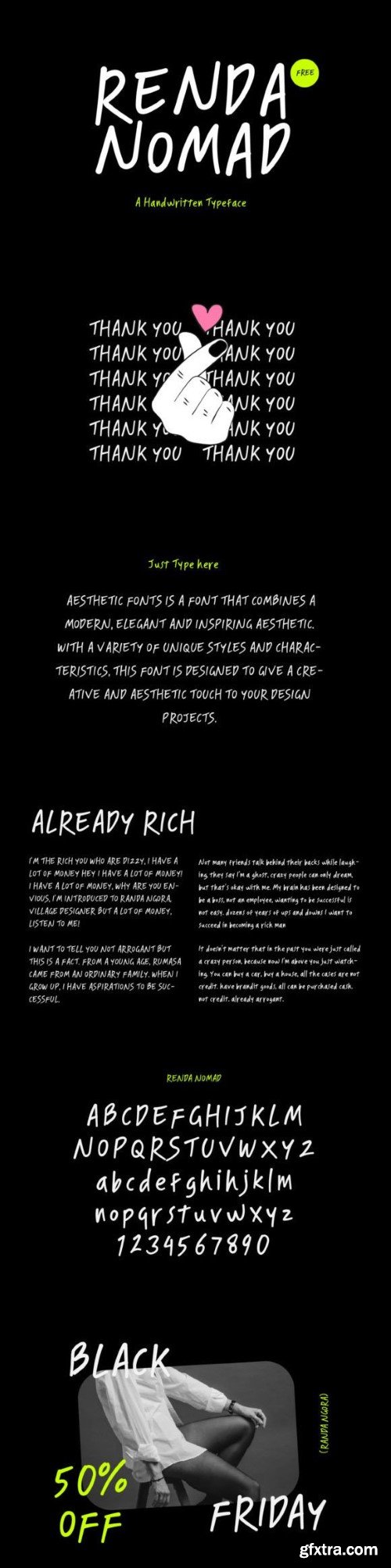
拉纳·诺马字体
Renda Nomad Font
Renda Nomad is a typeface that creates a relaxed, natural, and warm feel. This font was inspired by the handwriting of a person traveling across the desert, creating a trail of beautiful, rugged letters as they journeyed. With a handcrafted touch that feels personal, Renda Nomad combines organic and timeless elements that create unique characteristics.